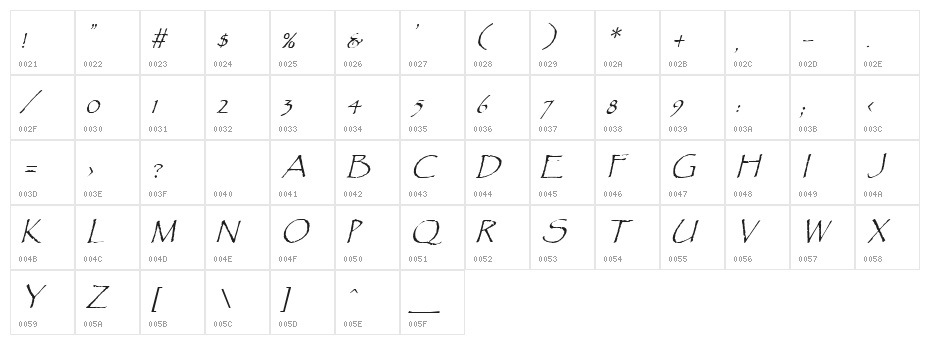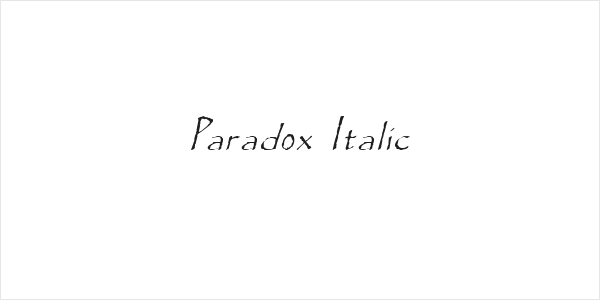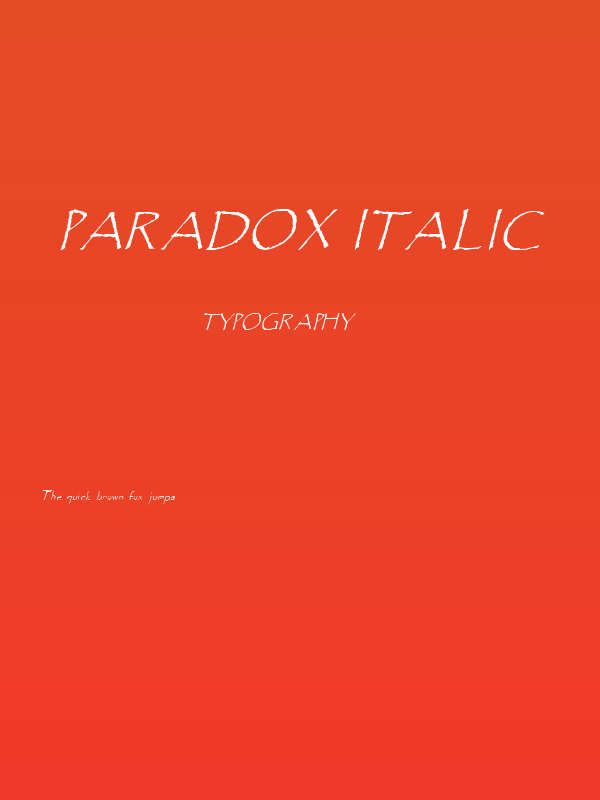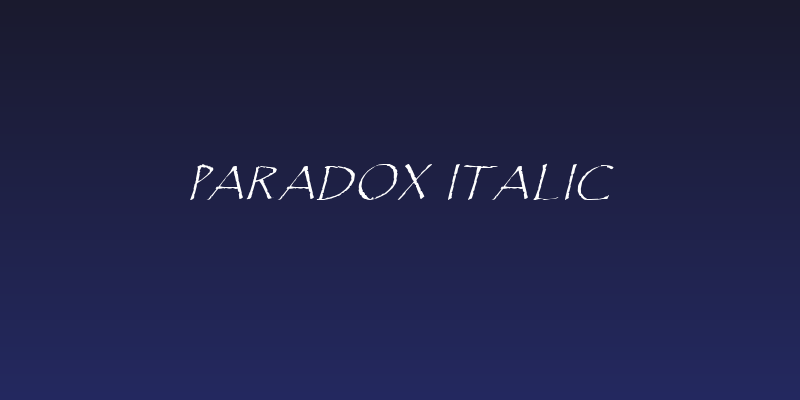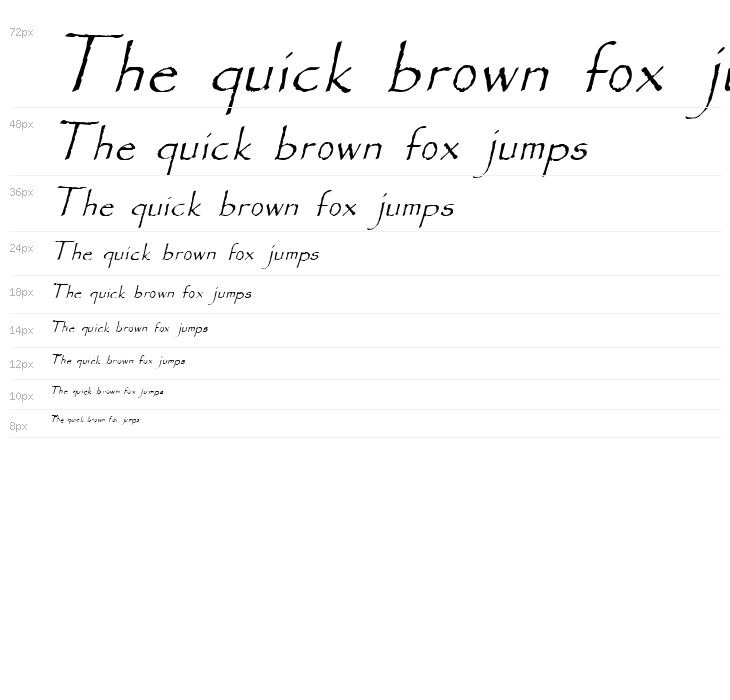
Paradox Italic Font
Paradox Italic Description
This font exhibits a dynamic and fluid style, characterized by its italicized and slightly slanted letterforms. The strokes are elegantly thin, with a consistent flow that mimics the natural movement of handwriting. Each character is distinct, yet they collectively maintain a cohesive appearance. The uppercase letters are tall and slender, while the lowercase letters are more rounded and compact, providing a balanced contrast. The numerals are uniquely styled to match the overall aesthetic, with a slight tilt that enhances their visual appeal. Special characters are crafted with the same attention to detail, ensuring they integrate seamlessly with the rest of the font.
| Overall Style | Elegant, Handwritten |
| Use Case | Invitations, Greeting cards, Branding |
| Proposed Projects | Ideal for projects that require a personal touch, such as invitations, greeting cards, or branding materials that aim to convey elegance and sophistication. |